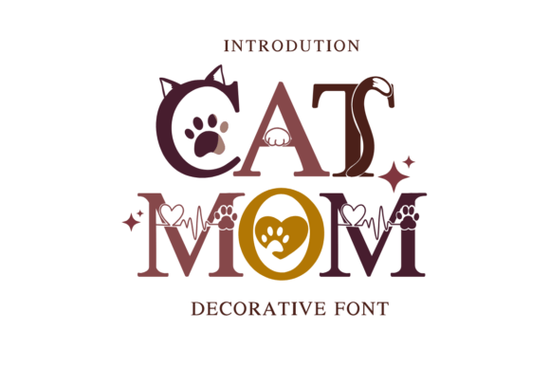
If you are looking to add a touch of feline charm to your next crafting project, the Cat Mom Font is a delightful choice. This decorative typeface blends classic serif structures with playful details like tiny ears, sweeping tails, and heart-shaped paws. It is specifically created for pet parents, crafters, and small business owners who want to celebrate their love for cats through custom apparel, mugs, and stationery.
How does the typography capture a pet parent's personality?
When you examine the letterforms closely, you will notice how every character tells a story. The designer integrated subtle EKG heartbeat lines and tucked paw prints right inside the counters of the letters. This attention to detail gives your text a custom-illustrated feel without requiring advanced graphic design skills. The visual narrative reflects the deep bond between humans and their pets, making it an instant standout for any project that needs to feel warm and approachable.
If you browse through similar whimsical typefaces in this collection, you will see how these unique flourishes help your text catch the eye. The intricate details provide a high-end look, meaning your message is not just read, but genuinely felt by every animal lover who sees it.
What are the best physical products to create with this style?
This style works beautifully for items that need to feel personal and heartfelt. Print-on-demand sellers and DIY crafters frequently use it for "Best Cat Mom" t-shirts, cozy hoodies, and embroidered tote bags. Because the letters already contain built-in graphics, you save time on layout design.
Beyond fashion, it excels in the world of home decor and paper goods. You can create personalized ceramic pet bowls, custom greeting cards for a friend’s new kitten, or fundraising flyers for a local animal shelter. The playful nature of the letters brings a professional yet unashamedly cute touch to every single "Meow" you print.
How should you pair it with other typefaces for balance?
Because the main letters have so much personality, you need to balance them with something simpler to maintain readability. A clean, understated monoline font lets the decorative elements take center stage without overwhelming the viewer.
For example, if you are designing a coffee mug, use the main font for the word "Meow" and pair it with a cheerful and simple script for the rest of the quote. If you are working on a vintage-style shelter poster, you might combine it with a rough, textured typeface for the background details to create a nice contrast. For elegant event invites for pet lovers, a classic monogram style works perfectly alongside it for the formal details.
Can beginners use this for commercial crafting and selling?
Quick checklist for your next feline crafting project
- Test your spacing: The extra tails and ears might overlap if the tracking is too tight. Increase the letter spacing slightly in your design software before cutting vinyl or sending to a printer.
- Use contrasting colors: Since the details are intricate, use a solid, high-contrast color for the font so the tiny paws and EKG lines remain clearly visible on your final product.
- Layer your materials carefully: If using heat transfer vinyl, use a weeding tool with a fine tip to carefully remove the tiny negative spaces inside the paw prints.